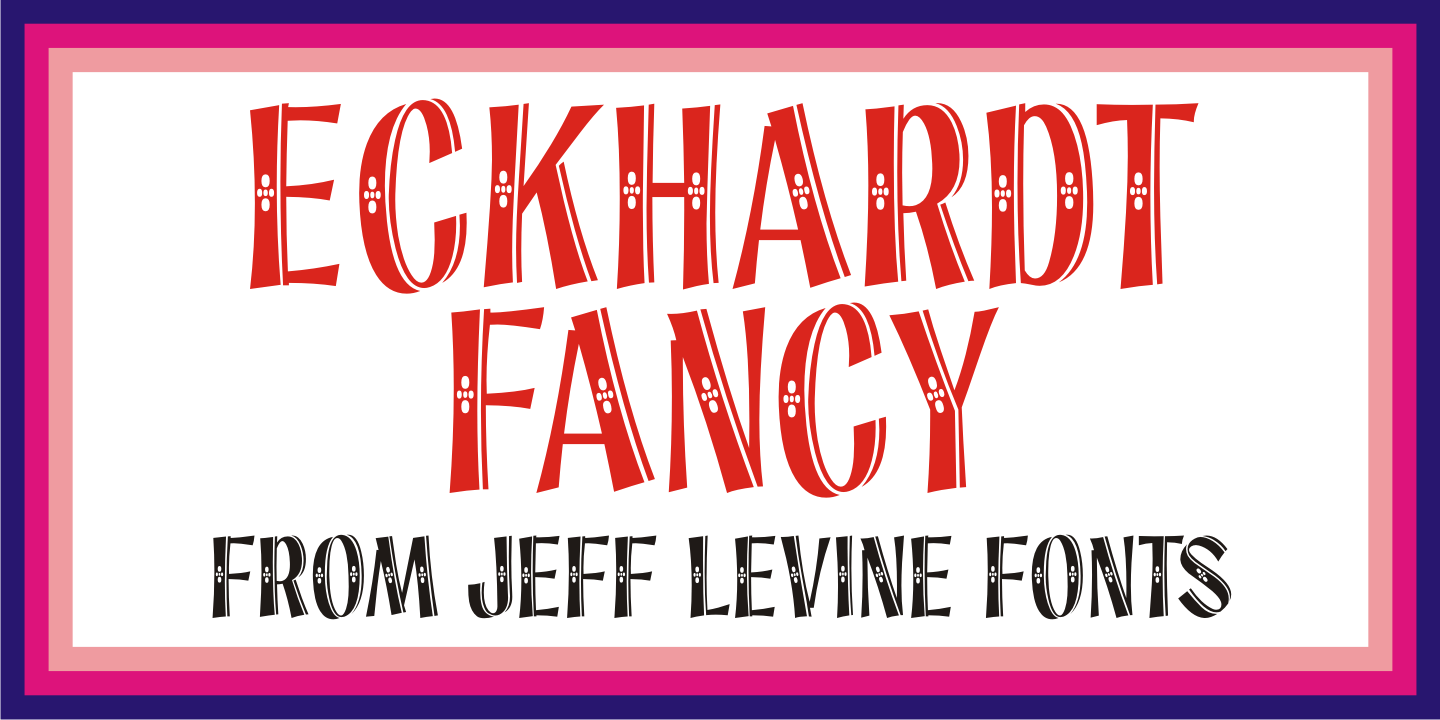
Eckhardt Fancy
Eckhardt Fancy JNL was named in honor of Al Eckhardt (1929-2005), a talented sign painter and good friend of font designer Jeff Levine. The design was inspired by a vintage alphabet found within a collection of decorative display alphabets from the type collection of the late Dan X. Solo. Font Styles:
Eckhardt Fancy JNL Regular by Jeff Levine Fonts